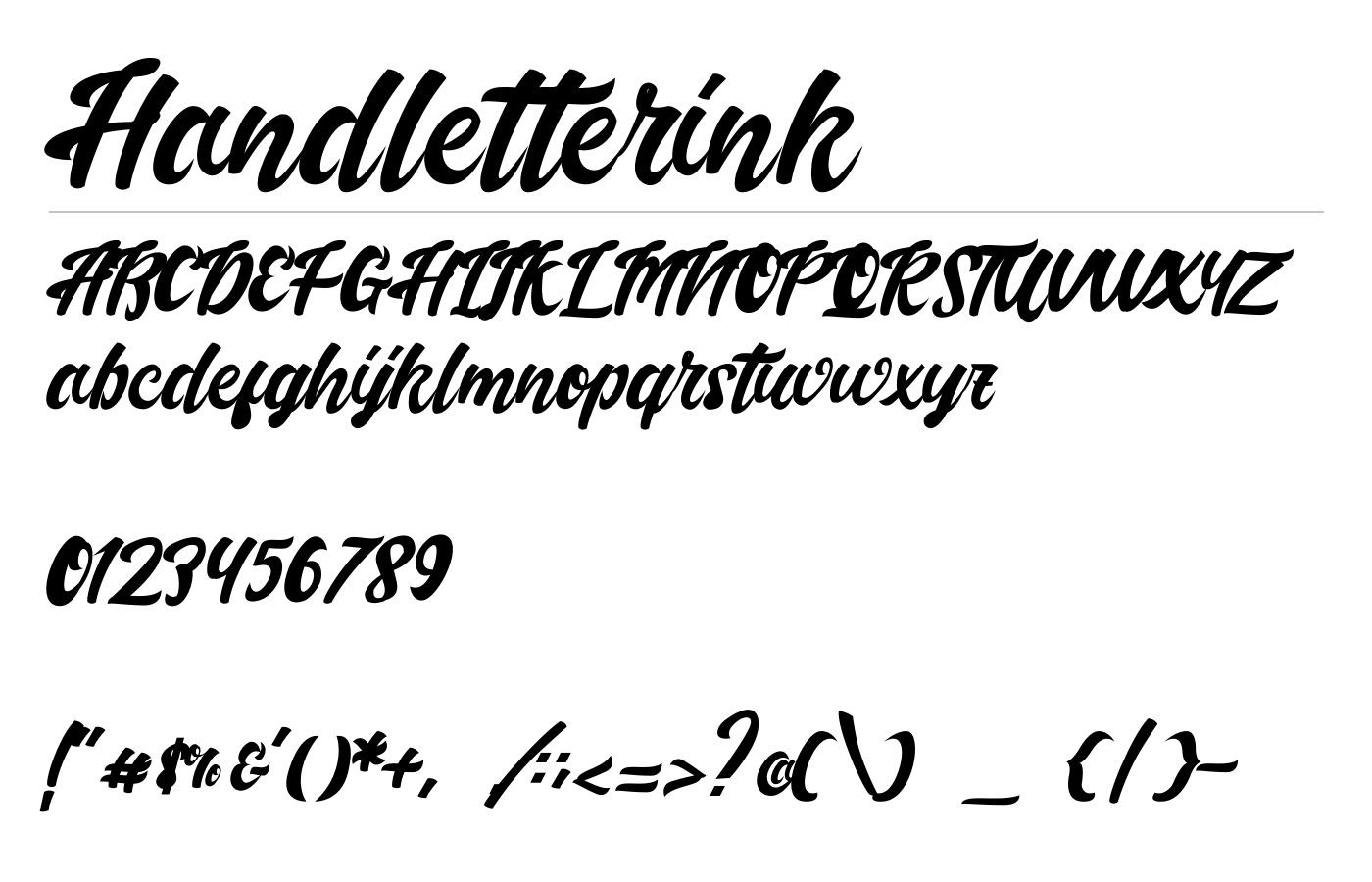
Handletterink Script is a bold, dynamic script font with a lively handwritten style that combines thick, smooth strokes and rhythmic curves. Its slightly condensed letterforms and connected characters give it an energetic yet elegant feel, making it perfect for branding, logos, and packaging that want to convey creativity and personality. This font works especially well for projects needing a confident, modern script with a handcrafted touch.
Handletterink Script Font
About Handletterink Script Font
| Font family | Handletterink Script Font |
| Designer | Debut Studio |